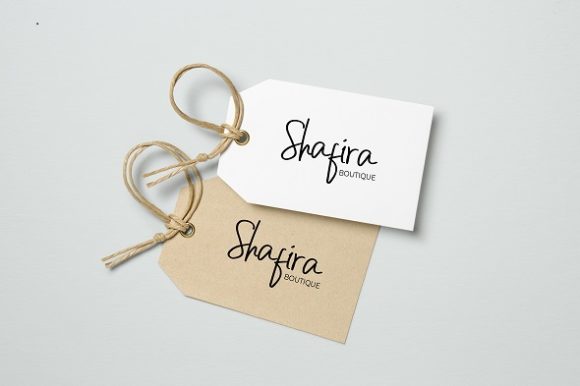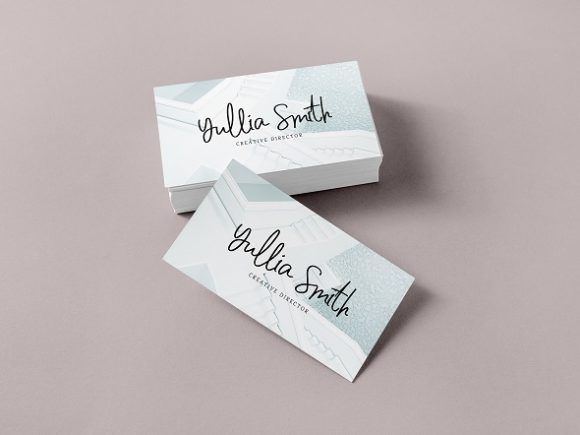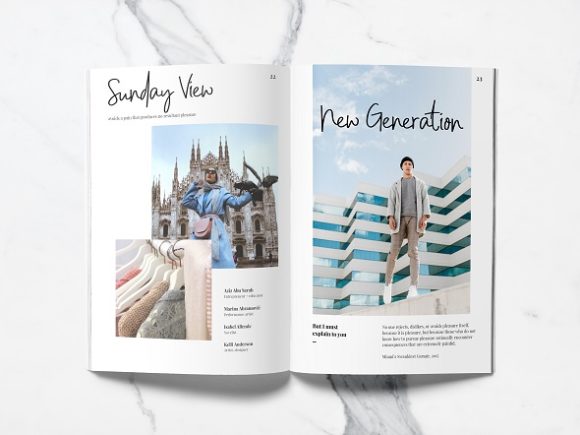
Discover the Magic of LaTahzan Font
As a designer, there’s nothing quite like the thrill of bringing a creative project to life. The moment when all the elements come together, and your vision starts to take shape – it’s pure magic. For me, that moment often begins with the perfect font. And that’s exactly what I found with LaTahzan Font – a sweet and charming handwritten font that will deliver an excellent reading experience.
Whether you’re working on a design project that requires a touch of elegance or a dash of whimsy, LaTahzan Font is a valuable resource that will help you achieve your goals. With its high-quality design and transparent background, this font is perfect for designers who want to add a personal touch to their work. And the best part? It’s available for free download, making it an accessible design resource for creatives of all levels.
Honest Review: LaTahzan Font
I recently had the chance to work with the LaTahzan Font, and I must say it’s a solid addition to any design resource collection. ✨ The font itself is high quality, with a unique aesthetic that lends itself well to creative projects.
Here are some of the key features that I appreciated:
- High quality, detailed design
- Unique aesthetic that sets it apart from more common fonts
While the LaTahzan Font is a great resource, there are a few limitations to be aware of: ⚠️
- Limited character set, which may not be suitable for longer texts
- No bold or italic styles available
Overall, I’m impressed with the LaTahzan Font, and I think it’s a great option for designers looking for a unique, high-quality font to add to their creative projects.
LaTahzan Font Overview
The LaTahzan Font is a high-quality design resource ideal for creative projects. With a transparent background, this font allows for seamless integration into various design elements.
Tips for Getting the Most Out of LaTahzan Font
Use LaTahzan Font for headings and titles to add a touch of elegance to your designs. You can also use it to create custom logos and icons.
LaTahzan Font is ideal for creative projects such as branding, marketing materials, and presentations. It’s also great for designing social media graphics and posters.